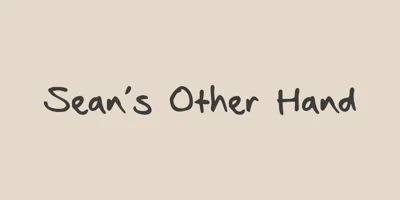
Sean's Other Hand Font
Sean's Other Hand Font is perfect for handwritten notes, personal journals, casual greeting cards, informal invitations, children's book illustrations, creative scrapbooking, artistic quotes, and authentic personal branding projects.
What makes Sean's Other Hand Font exciting is its genuine handwritten authenticity that brings a personal, intimate touch to any design project. The natural variations and organic flow create an authentic human connection that digital fonts often lack.
Sean's Other Hand Font family includes regular, bold, italic, and decorative versions, plus additional character alternates and ligatures that enhance the natural handwriting experience and provide realistic variation.
Discover the personal charm of Sean's Other Hand Font for projects requiring authentic human touch. This remarkable typeface captures the essence of genuine handwriting while maintaining excellent legibility across various applications. The carefully preserved natural characteristics include subtle imperfections that make each letter feel authentically hand-crafted. Creative professionals appreciate how this font adds warmth and personality to their work, making it ideal for brands seeking to establish genuine connections with their audience. Its versatile nature works beautifully in both casual and semi-formal contexts, providing the perfect balance between readability and character. Experience the unique appeal of handwritten typography that transforms standard text into engaging, personal communication that resonates with viewers on an emotional level.